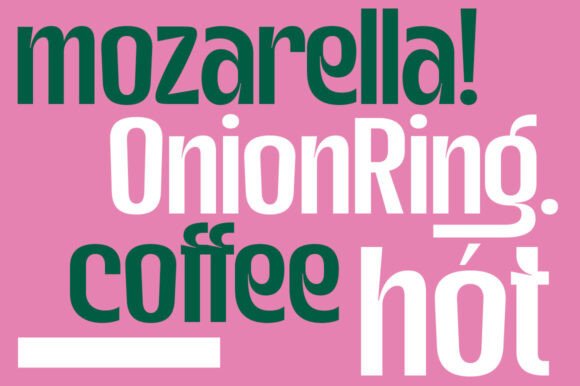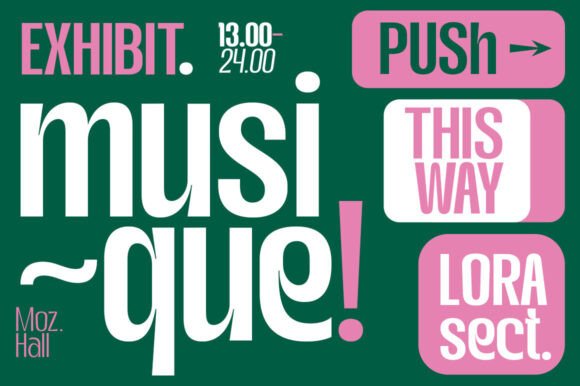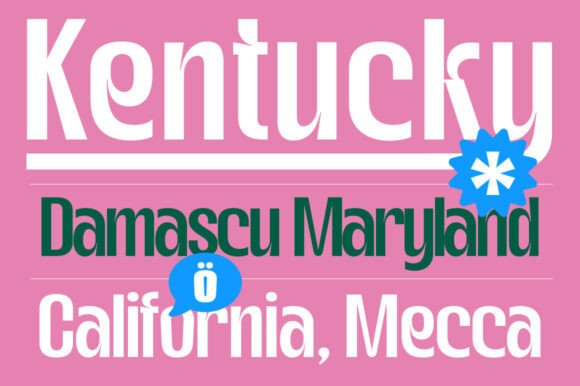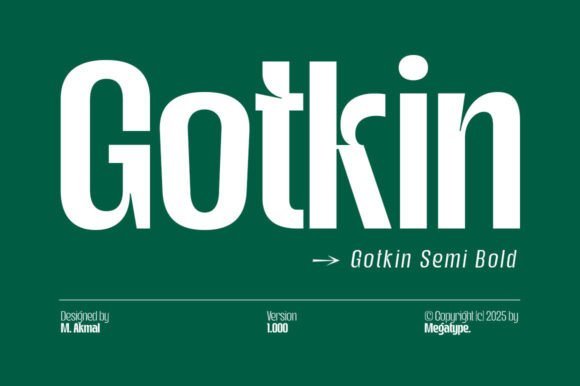
Introduction to Gotkin Semi Bold Font
Gotkin is a strong and sophisticated sans serif font family designed to convey modern strength and dynamism.
Gotkin is designed with soft curves and its bold Geometric to add warmth yet boldness, making it ideal for corporate branding, digital interfaces and editorial designs The font expands its use by providing weights ranging from light to black.